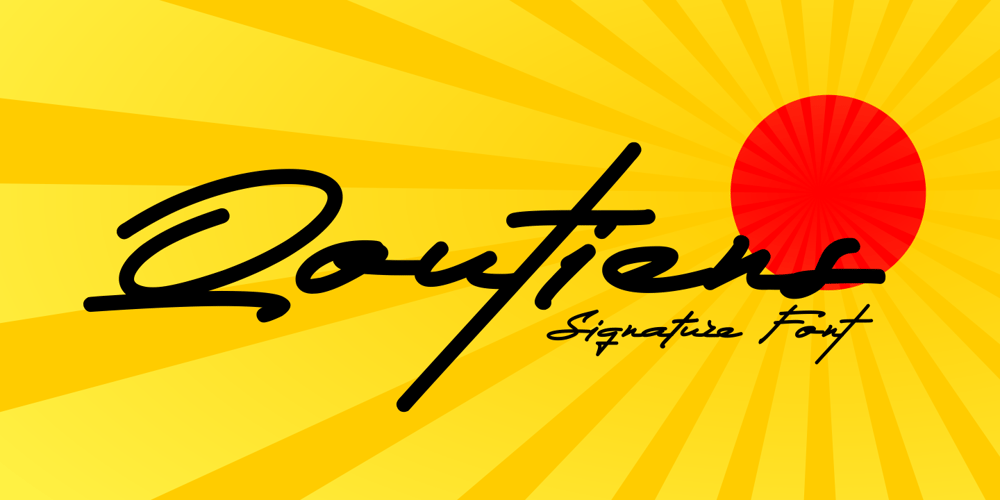
Qoutiens Font Family was designed by Ahmad Zulfikar Ali and published by ZetDesign. Qoutiens contains 1 styles and family package options. Qoutiens is a signature style font. made by following the handwritten pattern to produce a natural and elegant shape and produce a beautiful and classy shape. This font also comes with an Opentype feature to add an alternative style to the design. happy work and enjoy this awesome font ..